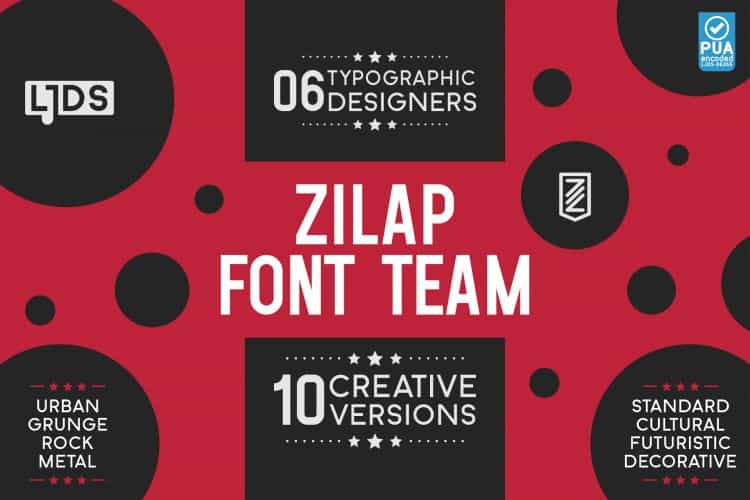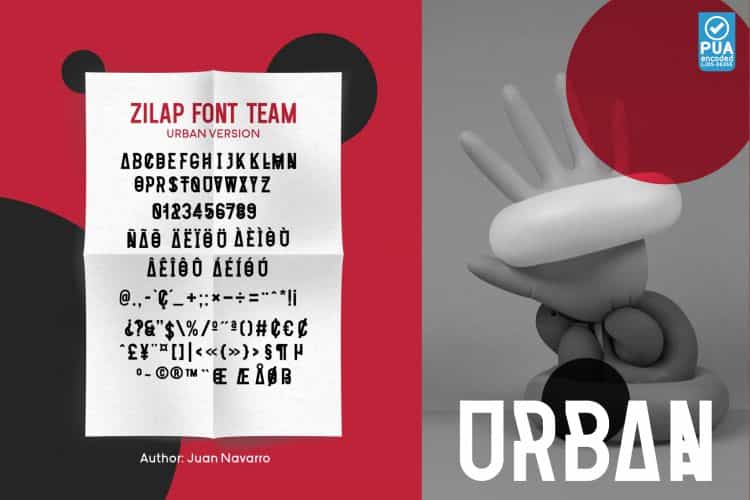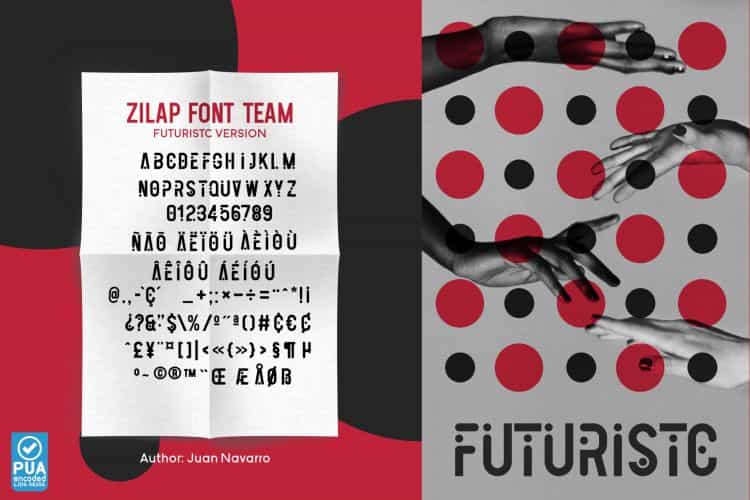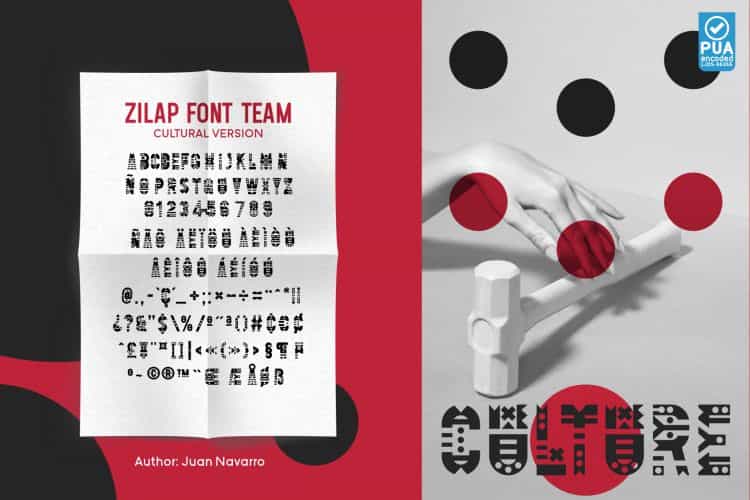
ZILAP FONT TEAM is a collection of Sans Serif fonts with a simple geometric design as it core influence. It is more useful as a primary source of graphic design in totality, poster designing, website designing among others.